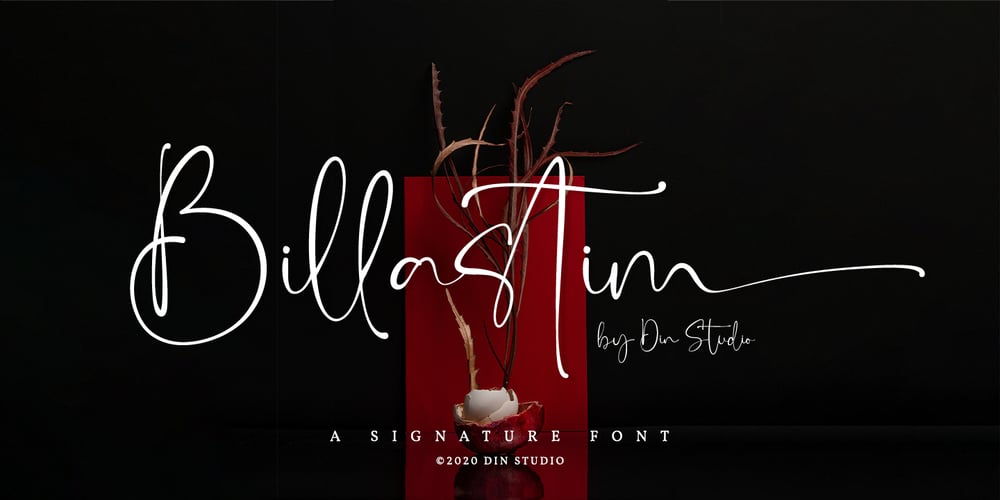
Billastim Font Family was designed by Donis Miftahudin and published by Din Studio. Billastim contains 1 styles and family package options. If you’re looking for a elegant font to attract your audiences or customers then we’ve got the font for you!This typeface with elegant and classy style looks very interesting for loads of different projects and promotions. It is perfect to be used on your website, for your social media branding, Pinterest banners, printed products, and more!Features: Standart Ligatures Stylistic Set Swashes Multilingual Support PUA Encoded Numerals and Punctuation